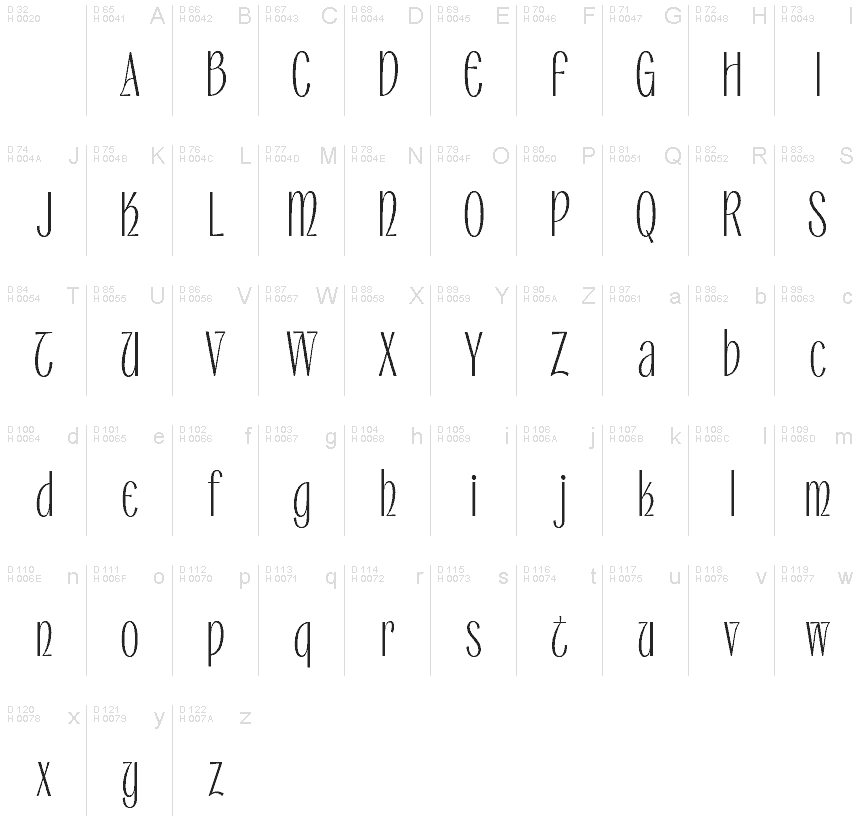
CS Burke Regular Demo
CS Burke font by Craft Supply Co. is a beautiful sans-serif typeface carrying vintage vibes with a slightly modern touch. The elegant light condensed font has geometric influences that make it unique and unlike any other. Curved endings, subtle artistic flair, and greed all come to show the care and attention to detail infused into this free font.
A balanced proportion makes CS Burke great for children’s book cover designs, modern branding projects of all industries, body text, headings, fashion magazine layout designs, broadcast graphics like mainstream TV news or Youtube videos intros. Contemporary appeal characters are best utilized also in logo design ideas or packaging labels in restaurants and sophisticated product brochures.